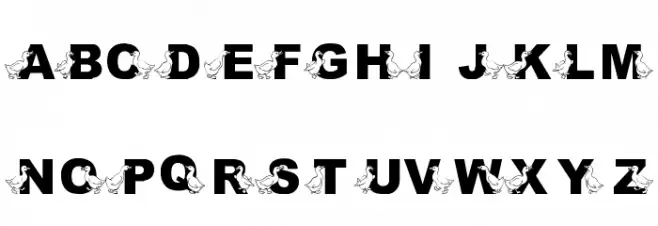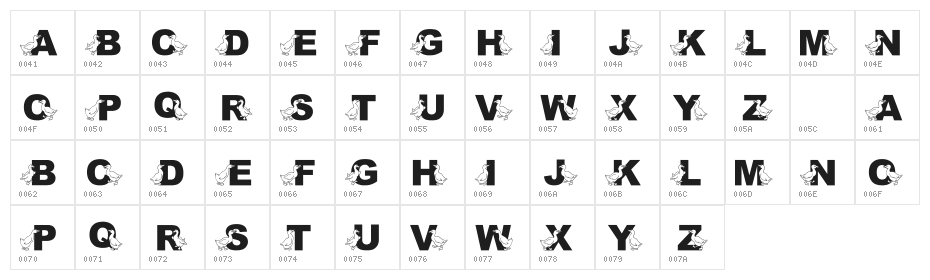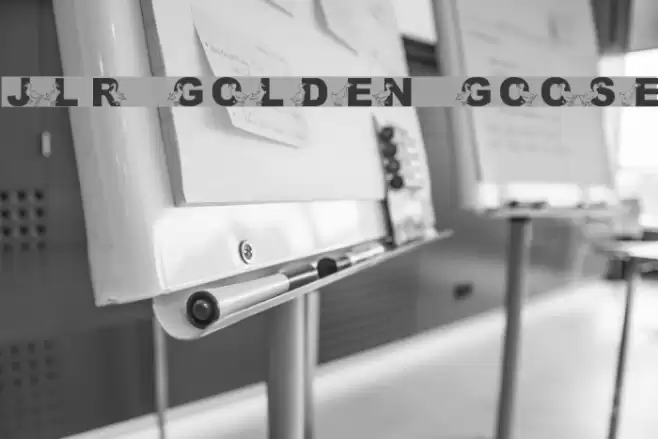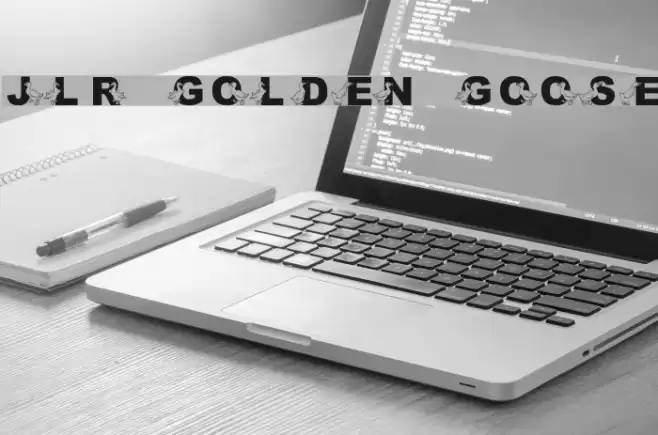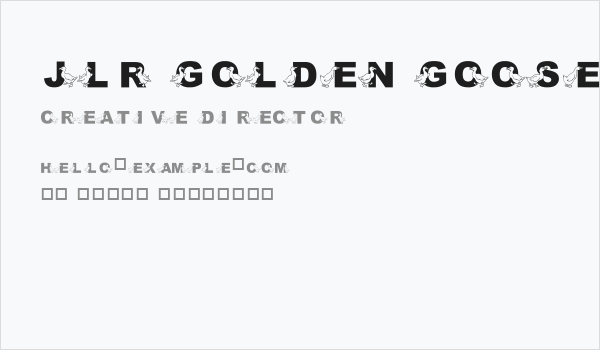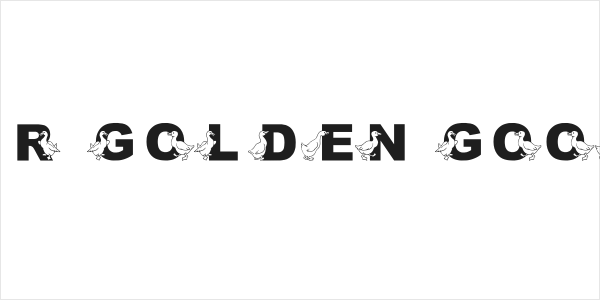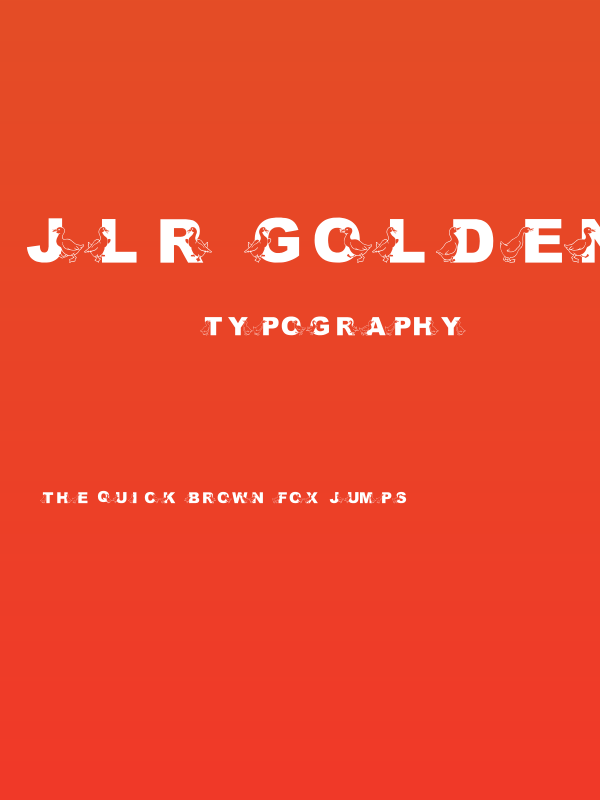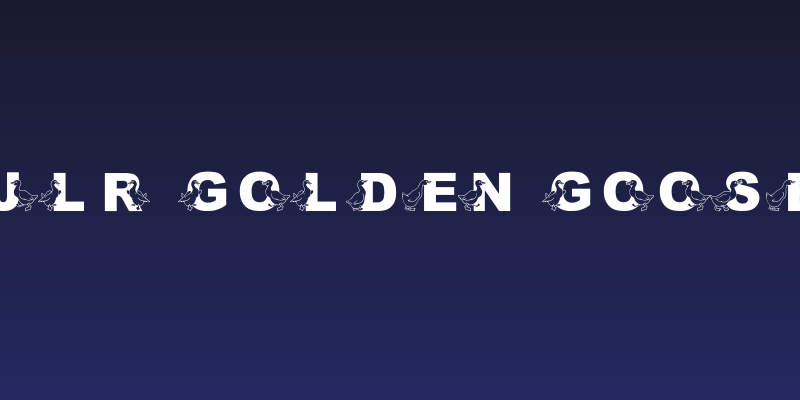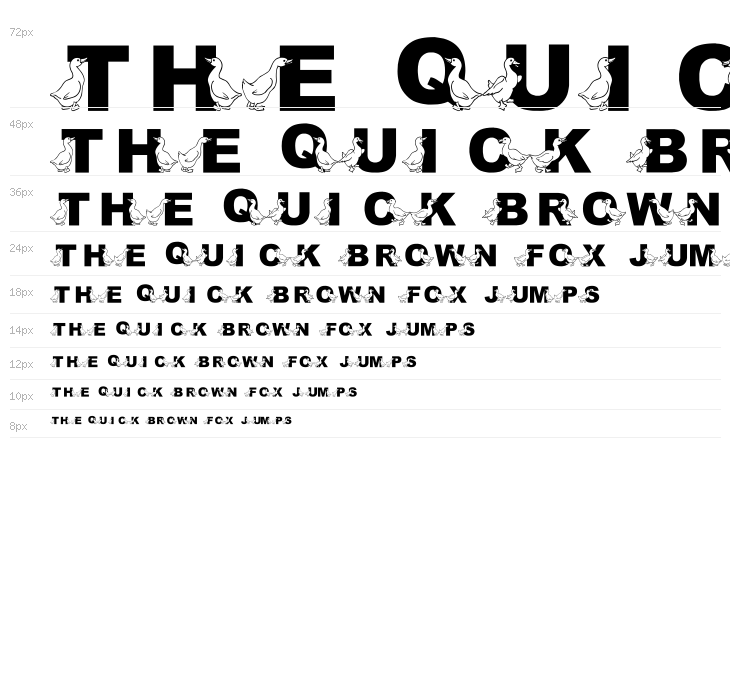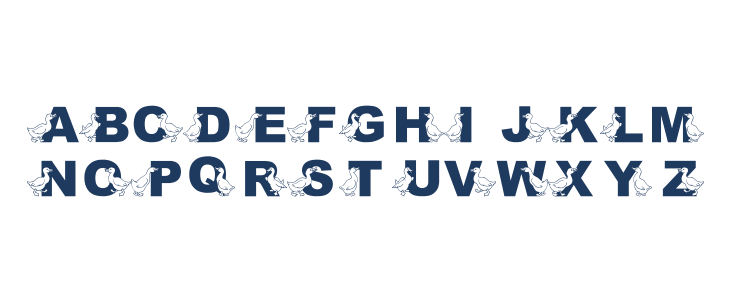
JLR Golden Goose Font
JLR Golden Goose Description
This font features a bold and decorative style with unique embellishments. Each letter is adorned with intricate illustrations of geese, creating a whimsical and playful appearance. The characters are uppercase, with a consistent and strong weight, making them stand out prominently. The design is highly decorative, suitable for creative and artistic projects. The geese illustrations are seamlessly integrated into the letterforms, adding a distinctive flair that captures attention. This font is ideal for projects that require a touch of creativity and uniqueness, such as children's books, playful branding, or themed event invitations.
| Proposed Projects | Children's books, playful branding, themed event invitations, creative posters. |